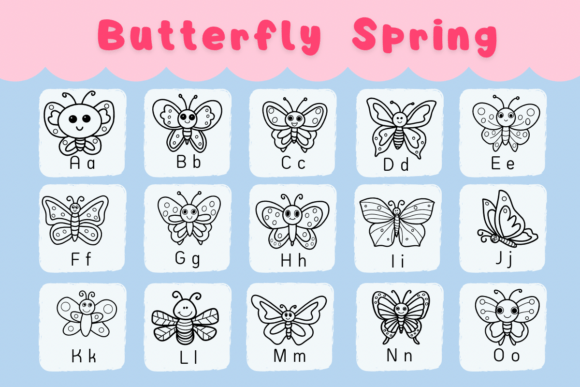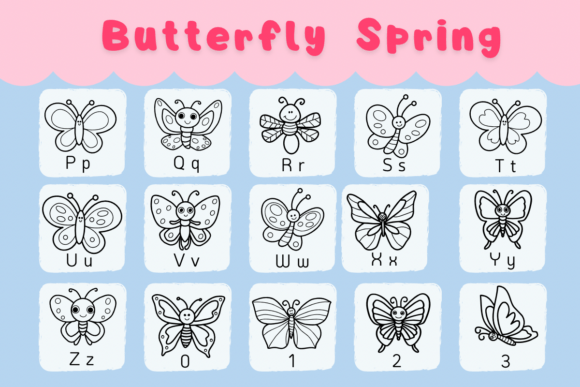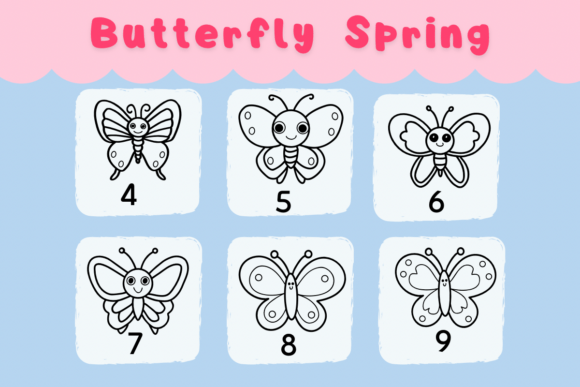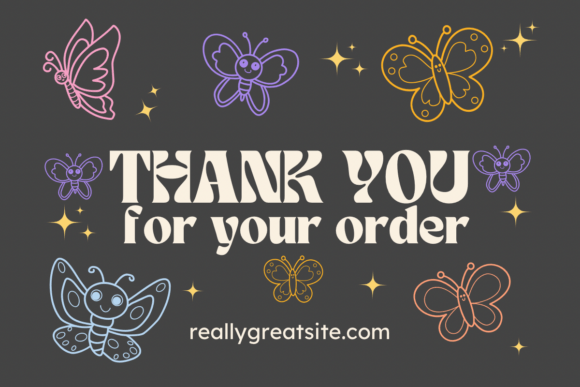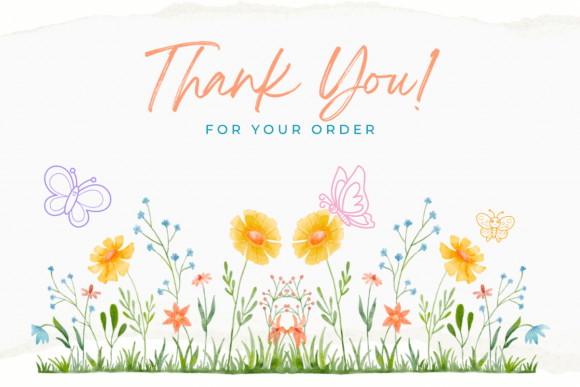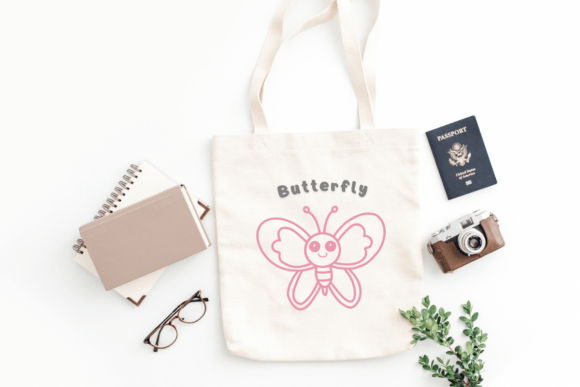
Introducing Butterfly Spring Font: Add a Touch of Whimsy to Your Designs
Are you looking for a unique and playful font to add a springtime feel to your designs? Look no further than Butterfly Spring Font! This charming font is made up of cute butterfly shapes instead of letters, each one showcasing a distinct and adorable design. Whether you’re a designer, crafter, or DIY enthusiast, Butterfly Spring Font is the perfect addition to your creative toolkit.
What is Butterfly Spring Font?
Butterfly Spring Font is a one-of-a-kind font that replaces traditional letters with intricate butterfly designs. Each symbol is carefully crafted to showcase a unique butterfly, complete with delicate wings and colorful details. The font is perfect for creating playful and eye-catching designs that evoke the feeling of springtime.
Features of Butterfly Spring Font
- Unique Butterfly Designs: Each symbol in the font features a distinct butterfly design, ensuring that your text will be anything but ordinary.
- Playful and Whimsical: The font’s playful and whimsical nature makes it perfect for designs that require a touch of fun and personality.
- Springtime Feel: The butterfly designs and colorful details evoke the feeling of springtime, making it ideal for seasonal designs and projects.
Uses for Butterfly Spring Font
Butterfly Spring Font is versatile and can be used in a variety of creative projects, including:
- Digital Designs: Use the font in digital designs such as social media graphics, blog posts, and email newsletters.
- Print Designs: The font is perfect for print designs, including business cards, brochures, and flyers.
- Crafting Projects: Butterfly Spring Font can be used in crafting projects, such as card making, scrapbooking, and DIY decorations.
- Web Design: The font can be used in web design to add a touch of personality and whimsy to your website.
Tips for Using Butterfly Spring Font
To get the most out of Butterfly Spring Font, here are a few tips:
- Use it Sparingly: Due to the font’s playful nature, it’s best to use it sparingly to avoid overwhelming your design.
- Pair it with Other Fonts: Pair Butterfly Spring Font with other fonts to create a unique and visually appealing design.
- Experiment with Colors: The font’s colorful details make it perfect for experimenting with different color schemes and palettes.
Butterfly Spring Font is a charming and playful font that’s perfect for adding a touch of whimsy to your designs. With its unique butterfly designs and springtime feel, it’s ideal for designers and crafters looking to create eye-catching and personality-filled projects. Whether you’re working on digital designs, print designs, or crafting projects, Butterfly Spring Font is sure to inspire your creativity and bring a smile to your face.